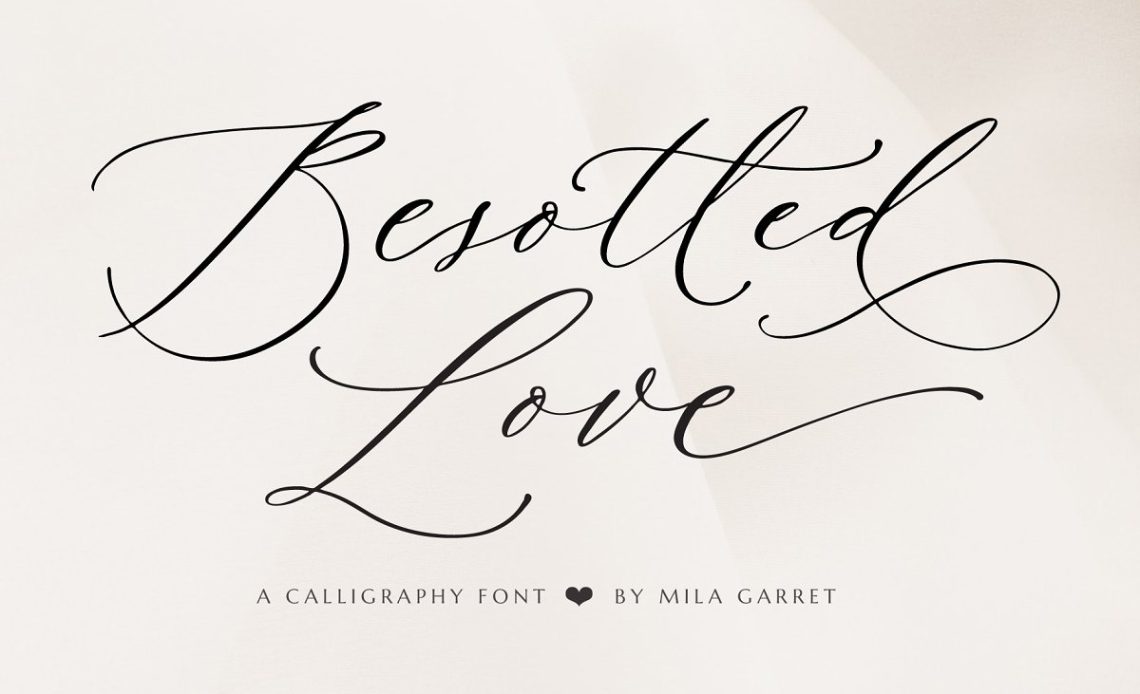
Make your wedding day, photography branding, or modern website pop with the luxurious and elegant Besotted Love calligraphy font! This gorgeous script font was created by Mila Garret and is perfect for anyone looking to add a touch of sophistication to their project.
Besotted Love features a full set of standard alphabet and punctuation, as well as an extra set of beginning swashed capitals, beginning swashed lowercase, and ending swashed lowercase for that signature handwritten look. With extra stylistic alternates and PUA encoding, you don't need any special software to access the additional swashed characters.
But Besotted Love is more than just a pretty font. It's also incredibly versatile, making it perfect for a variety of projects. Use it for elegant logos, wedding stationery, business cards, social media graphics, or any other project that could use a touch of glamour and sophistication.
And with multilingual characters including accents and special characters, you can add a personal touch to your project no matter what language you're working in.